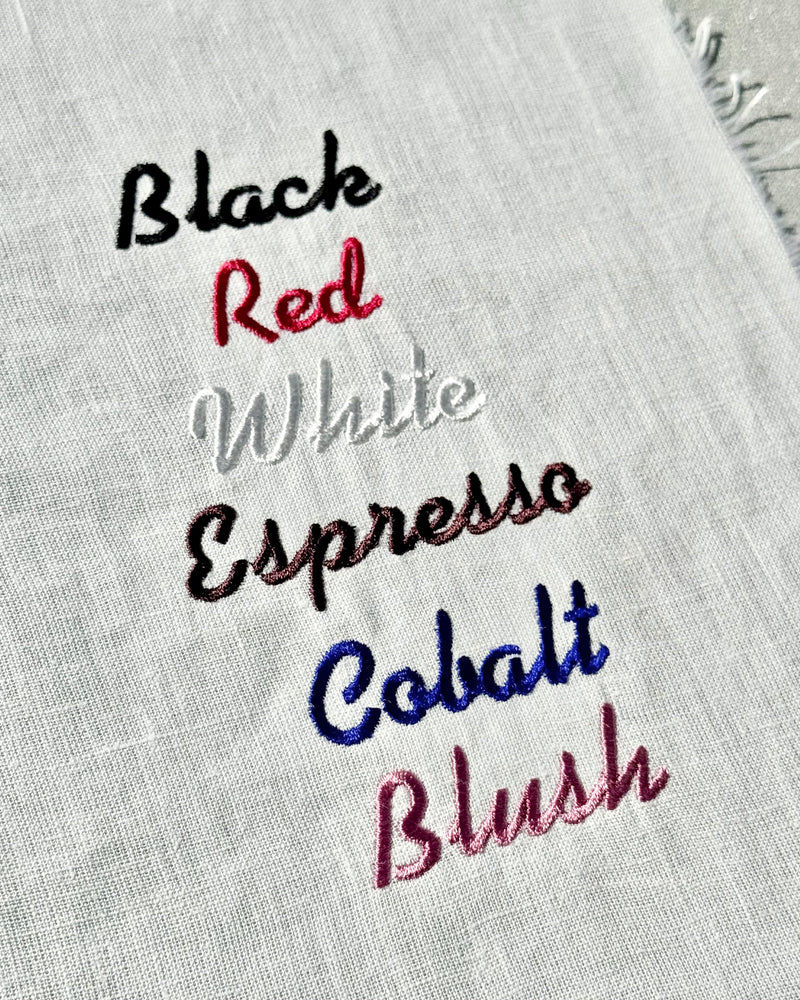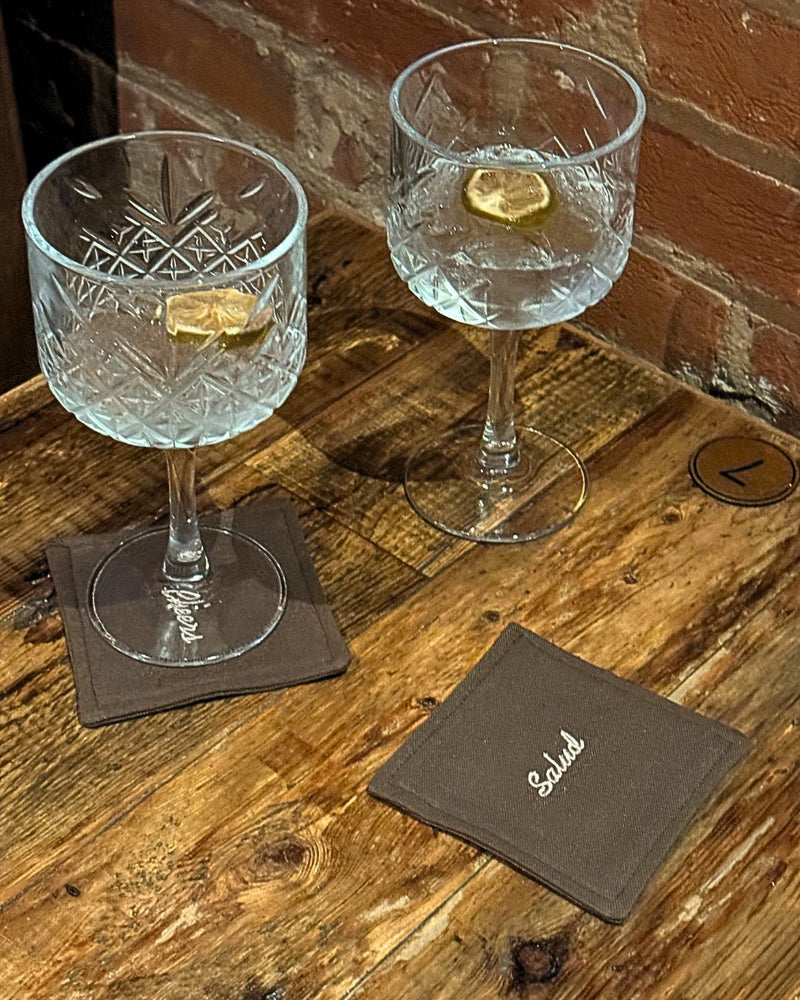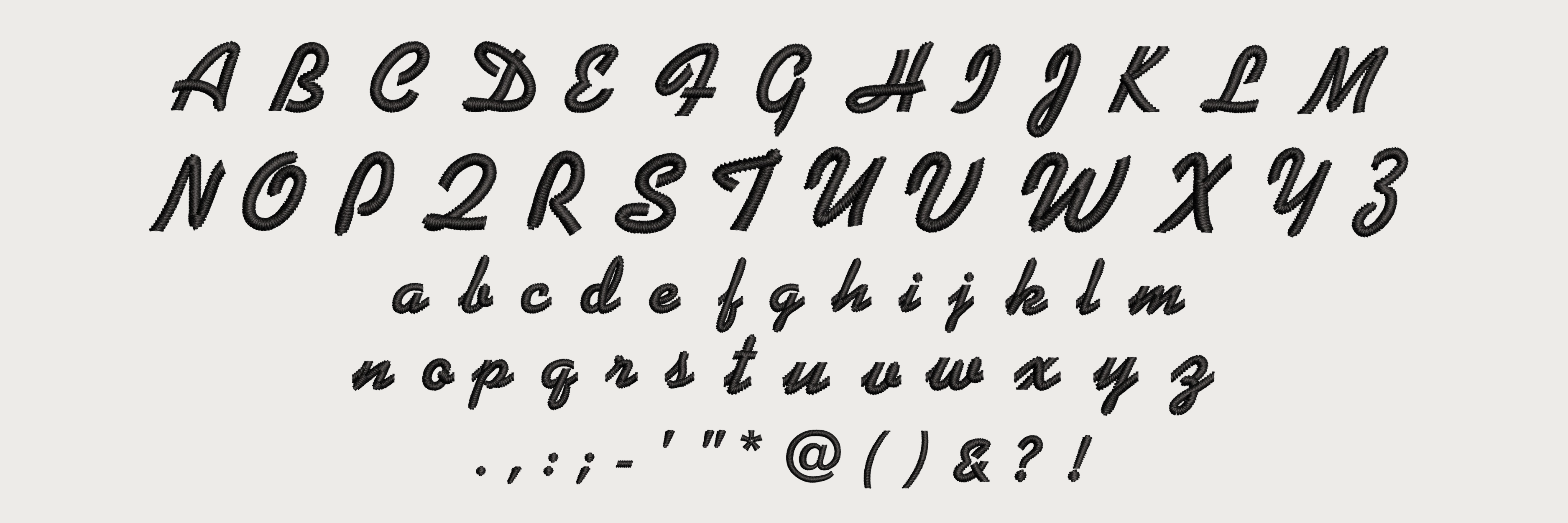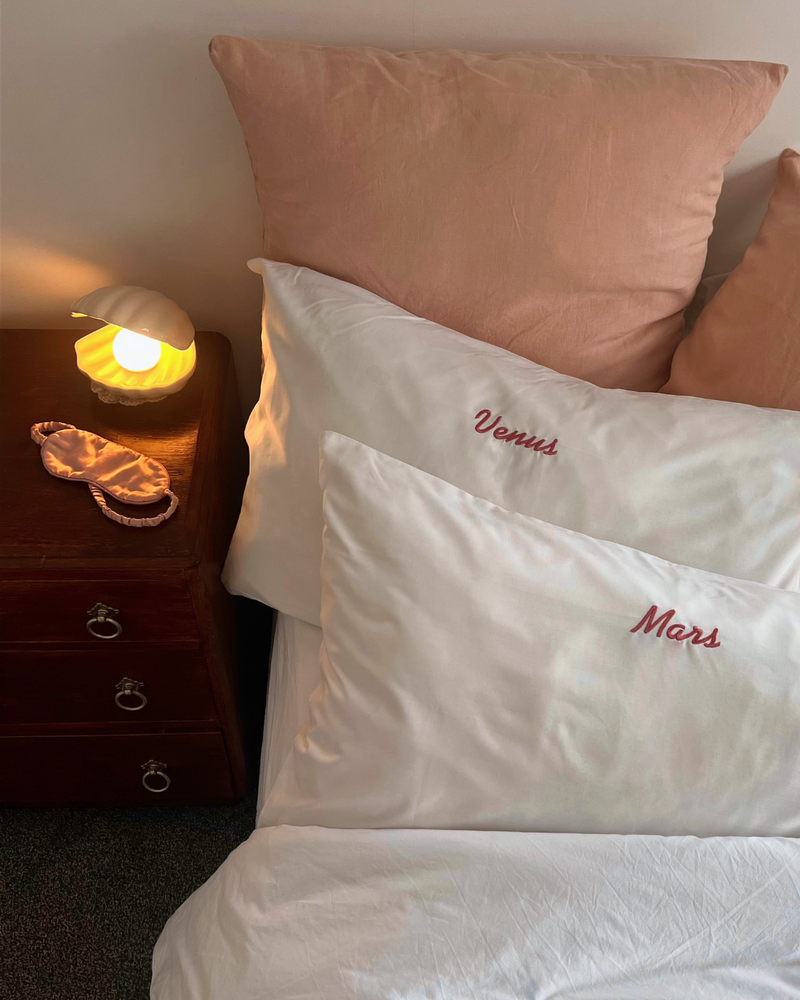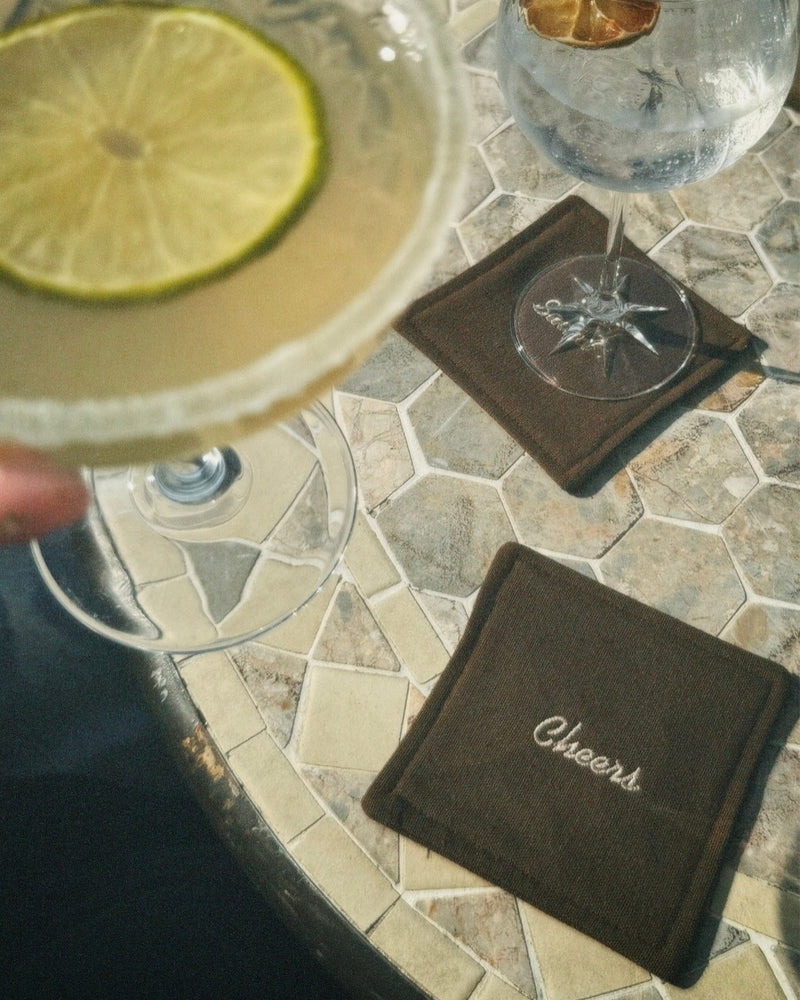
The Elena Font
Our custom embroidery font Elena is a preppy font that embodies a retro feel to transport you to your youth. Browse the full offering of this font below to help you to envision your custom embroidery piece.